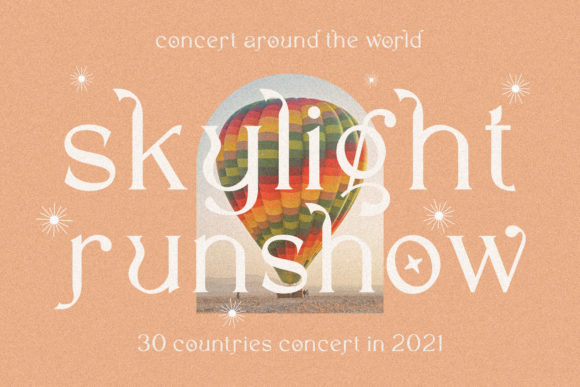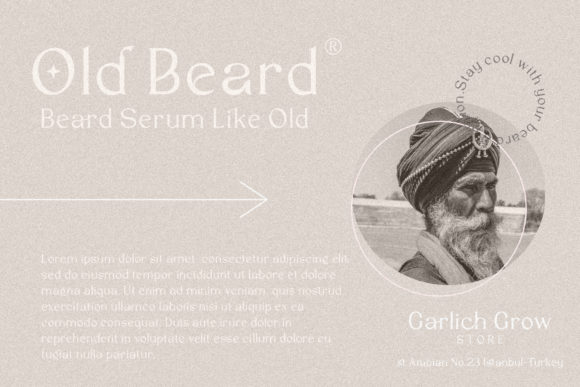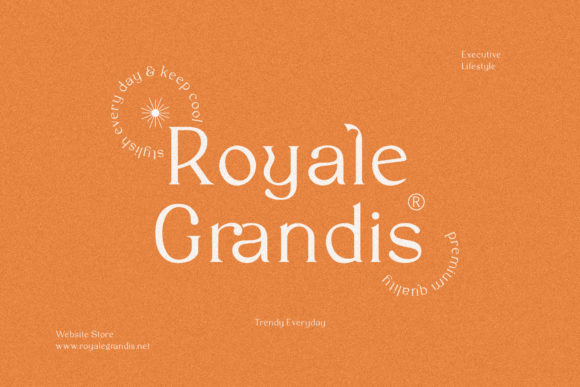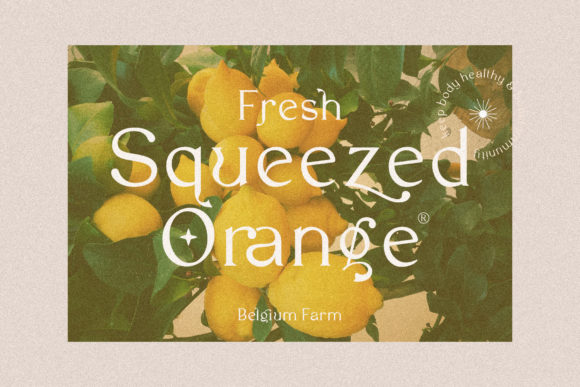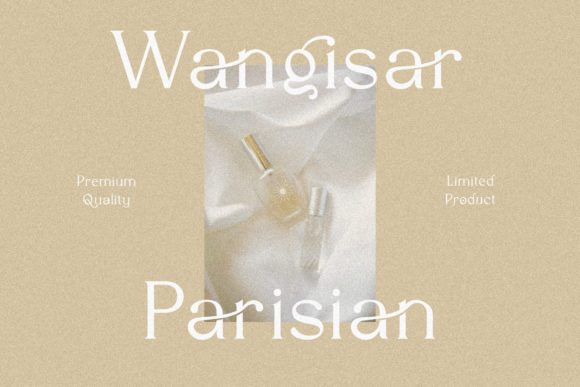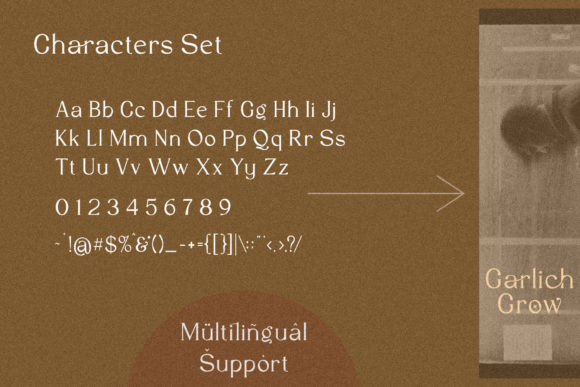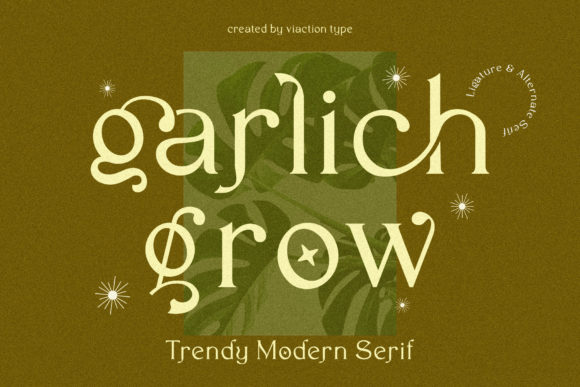
Introducing Garlich Grow Font: Elevate Your Designs with Elegance and Whimsy
In the world of typography, a font can make or break a design. For designers and crafters looking to add a touch of sophistication and playfulness to their creations, Garlich Grow Font is an excellent choice. This trendy and elegant serif font is designed to make your projects stand out with its unique blend of chic and whimsical style.
What Makes Garlich Grow Font Special?
Garlich Grow Font is not just another serif font; it’s a design statement. Its elegant lines and curves bring a level of sophistication that’s hard to achieve with standard fonts. Whether you’re working on a branding project, a wedding invitation, or a packaging design, Garlich Grow Font can add that extra layer of elegance and charm.
Key Features of Garlich Grow Font
- Trendy and Elegant Design: Garlich Grow boasts a modern yet classic look that fits a wide range of design needs. Its serif details add a touch of tradition, while its overall style keeps it contemporary and fresh.
- Chic and Whimsical Style: The font’s whimsical elements give it a unique personality. It’s perfect for designers who want to add a bit of flair to their work without going overboard.
- Distinct and Beautiful: With Garlich Grow, your creations will undoubtedly stand out. The font’s distinct style ensures that your designs will be memorable and visually appealing.
Applications of Garlich Grow Font
The versatility of Garlich Grow Font makes it suitable for a variety of projects. Here are some of the ways you can use this beautiful font:
- Branding and Logotypes: Create a lasting impression with a unique and elegant logo that captures the essence of your brand.
- Wedding and Event Invitations: Add a touch of elegance and whimsy to your invitations, making your event unforgettable.
- Packaging Design: Stand out on the shelves with eye-catching packaging that combines style and sophistication.
- Digital Media: Use Garlich Grow Font in your digital content, such as blog headers, social media graphics, and website designs, to give your online presence a stylish boost.
Tips for Using Garlich Grow Font Effectively
To get the most out of Garlich Grow Font, consider the following tips:
- Experiment with Swashes: Take advantage of the PUA encoding to explore different swashes and glyphs. This can add a unique touch to your designs.
- Mix and Match: Don’t be afraid to combine Garlich Grow Font with other fonts. Its elegant style pairs well with a variety of typefaces.
- Play with Sizes and Colors: Experiment with different sizes and colors to create visual hierarchy and emphasize key elements in your designs.
Garlich Grow Font is a powerful tool for designers and crafters looking to elevate their projects with a touch of elegance and whimsy. Its trendy and elegant design, combined with PUA encoding for easy access to glyphs and swashes, makes it a versatile and beautiful choice for a wide range of applications. Whether you’re creating branding materials, invitations, packaging, or digital content, Garlich Grow Font is sure to make your designs distinct and memorable.
So why settle for ordinary when you can make your designs extraordinary with Garlich Grow Font? Dive into the world of elegant typography and let your creativity shine.